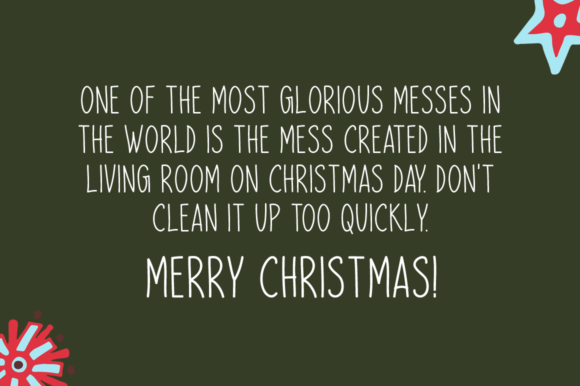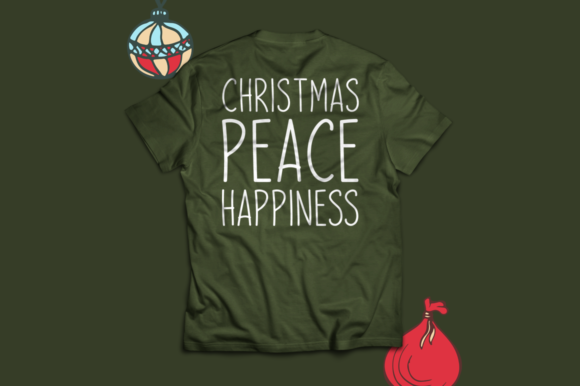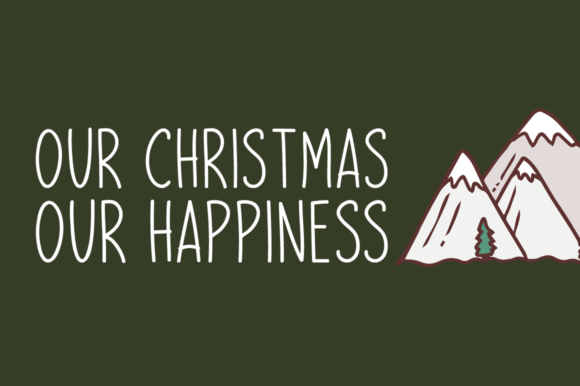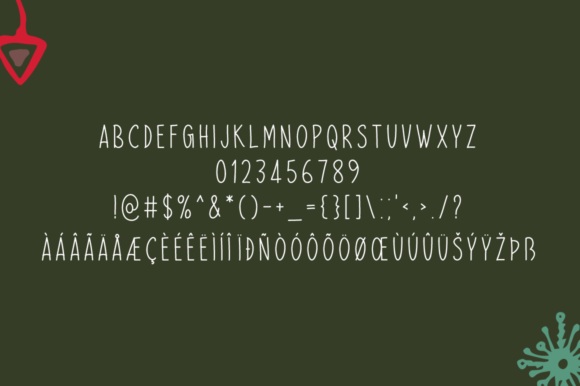
The Magic of Connect Christmas Font: A Designer’s New Best Friend
So, what makes Connect Christmas Font so special? Here are a few things I absolutely love:
- ✨ Clean and simple lettered design that screams elegance and sophistication
- ✅ Authentic, handwritten feel that adds a personal touch to any design
- ⚡️ Highly versatile and can be used for a wide range of projects, from chalkboard quotes to teaching materials
Of course, no font is perfect, and there are a few quirks to be aware of:
- 🤔 Limited character set, which might make it less suitable for very long texts or paragraphs
- ⚠️ May not work as well with non-English languages or special characters
The Story Behind Connect Christmas Font
| Font Name | Connect Christmas Font |
| Author | Seemly Fonts |
| Is Connect Christmas Font suitable for body text? | While Connect Christmas Font is beautiful, it’s best suited for headlines, titles, and short paragraphs. Its limited character set and stylistic alternates make it less suitable for long-form text. |